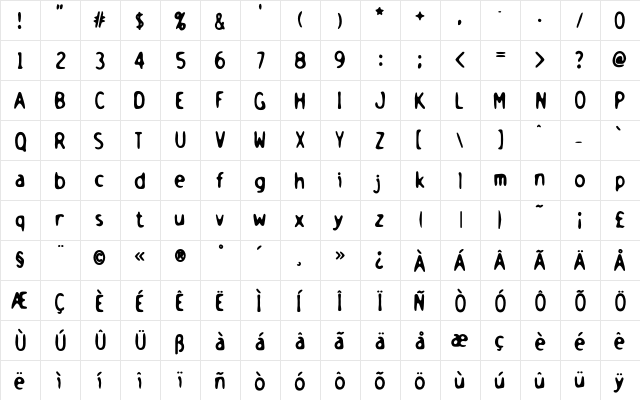
Holstein Bold
Design Context for Holstein Typeface
Holstein offers clean, dependable letterforms without strong stylistic allegiance, making it a practical choice for designers who need flexibility. The heavy weight commands attention and anchors typographic hierarchies.